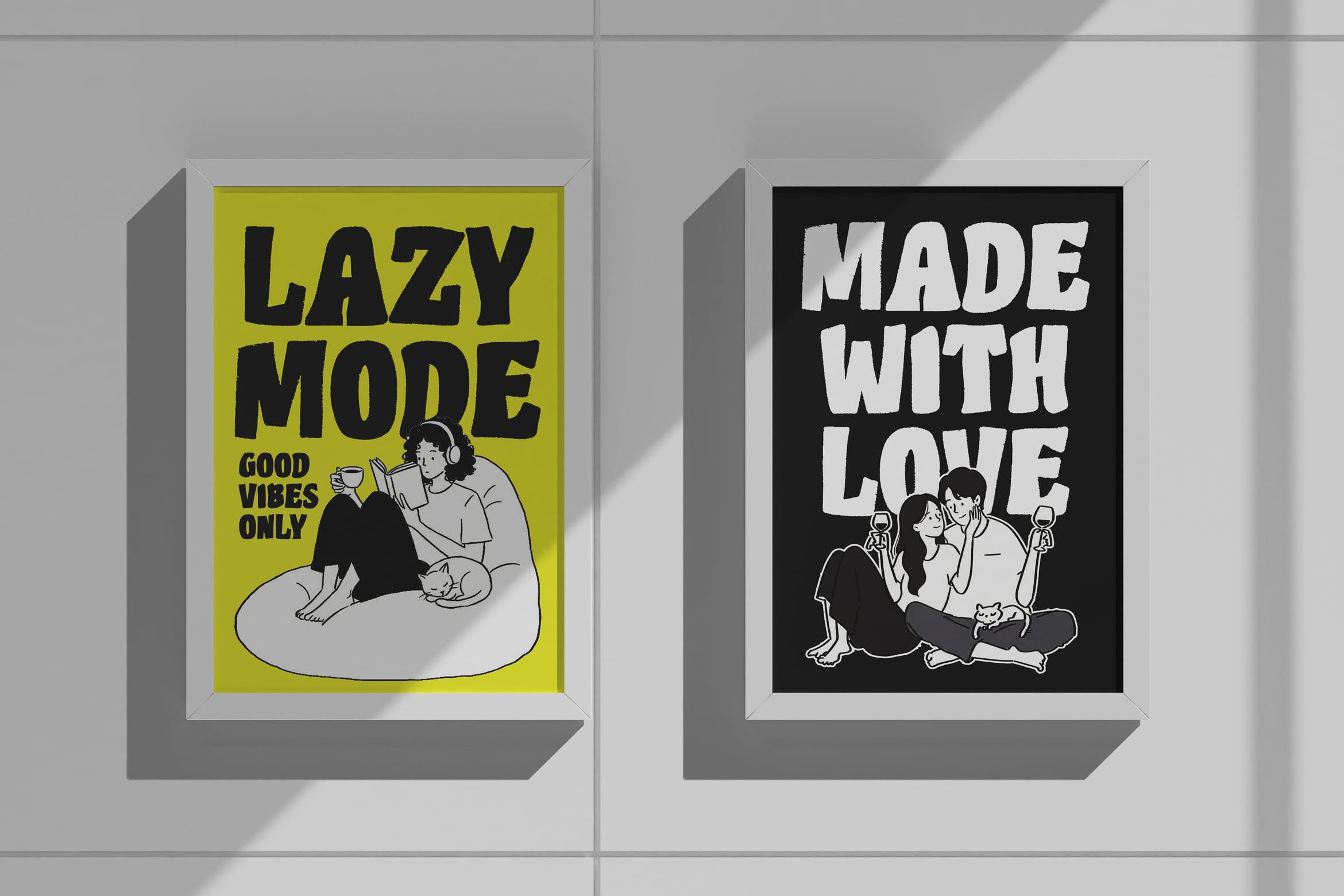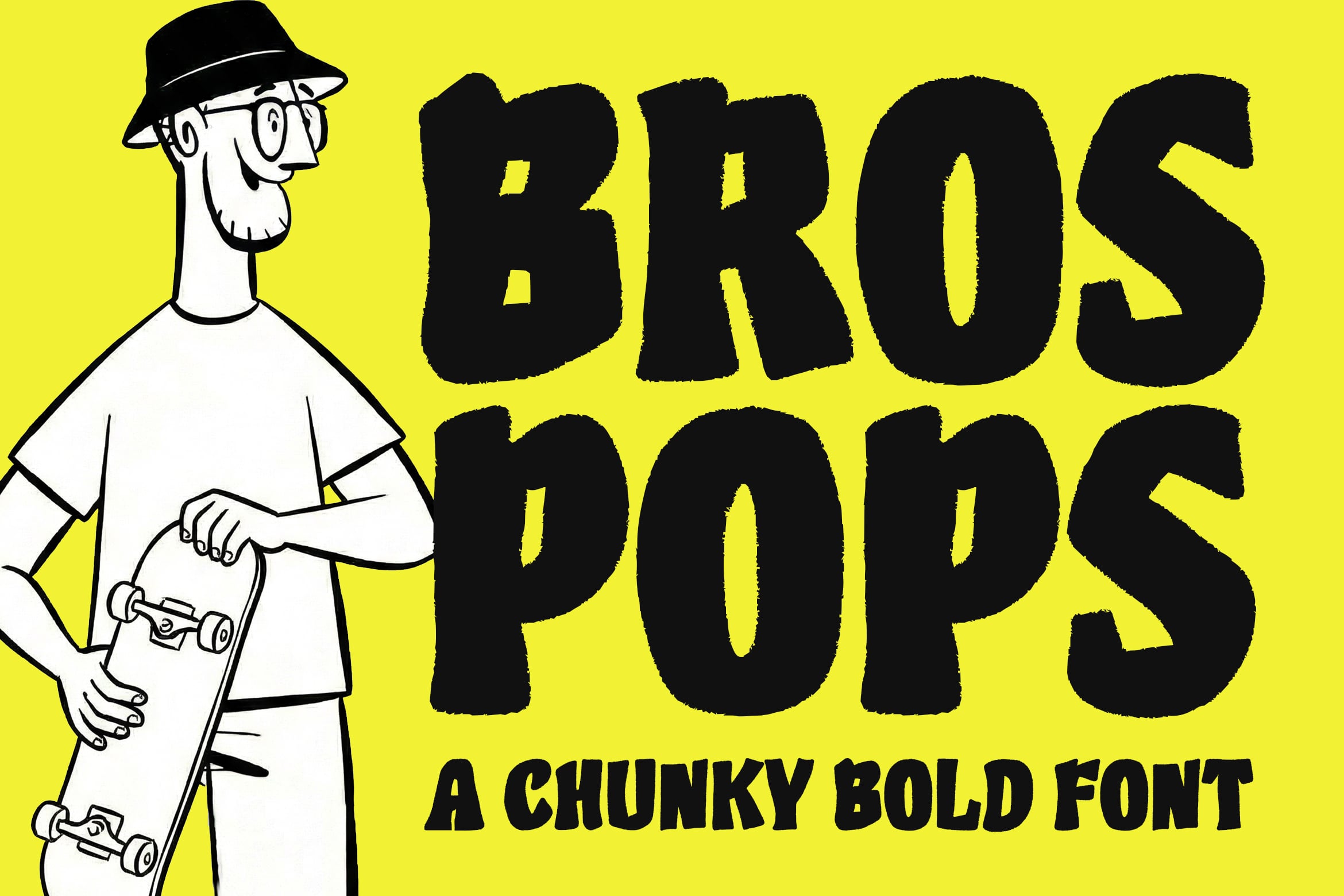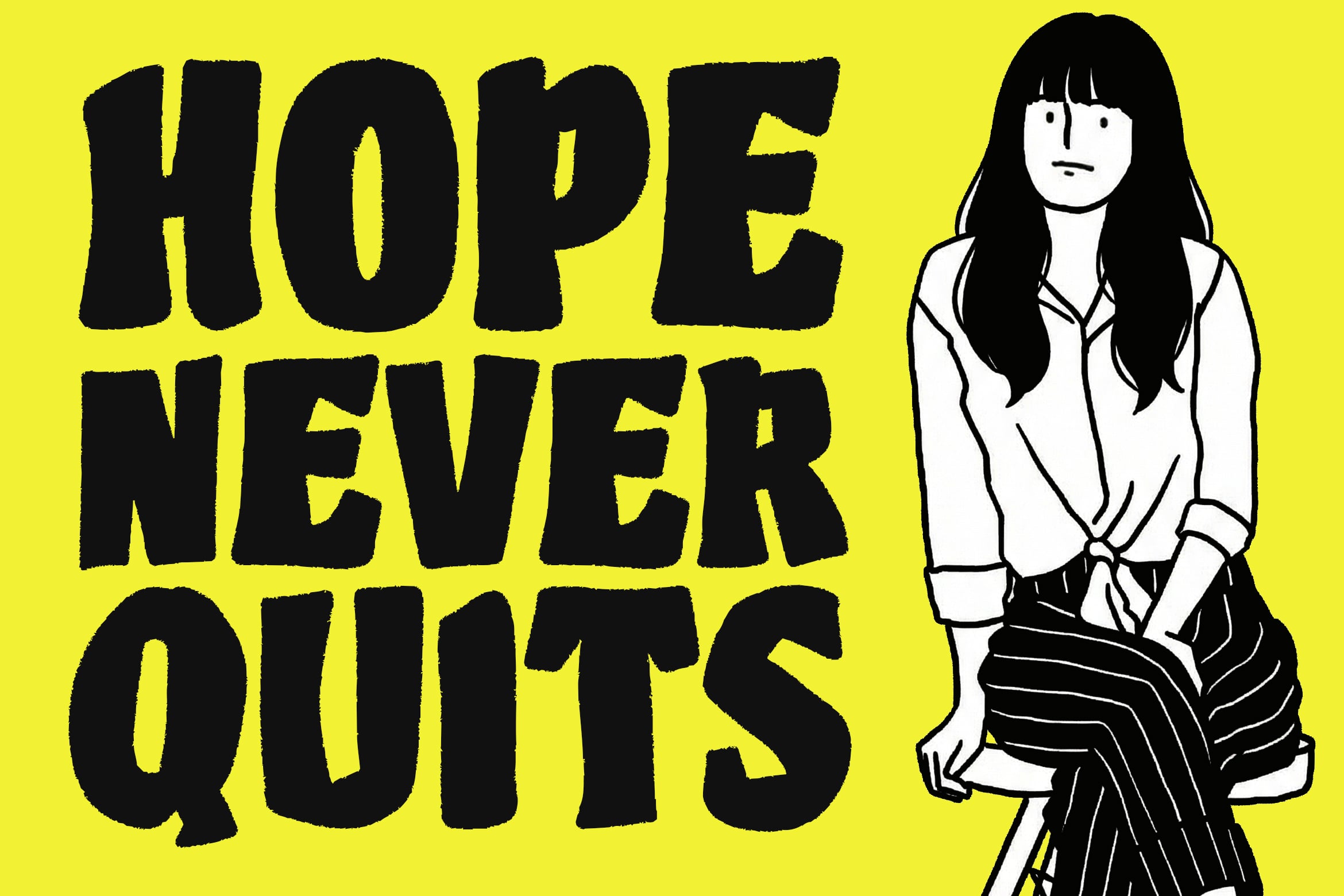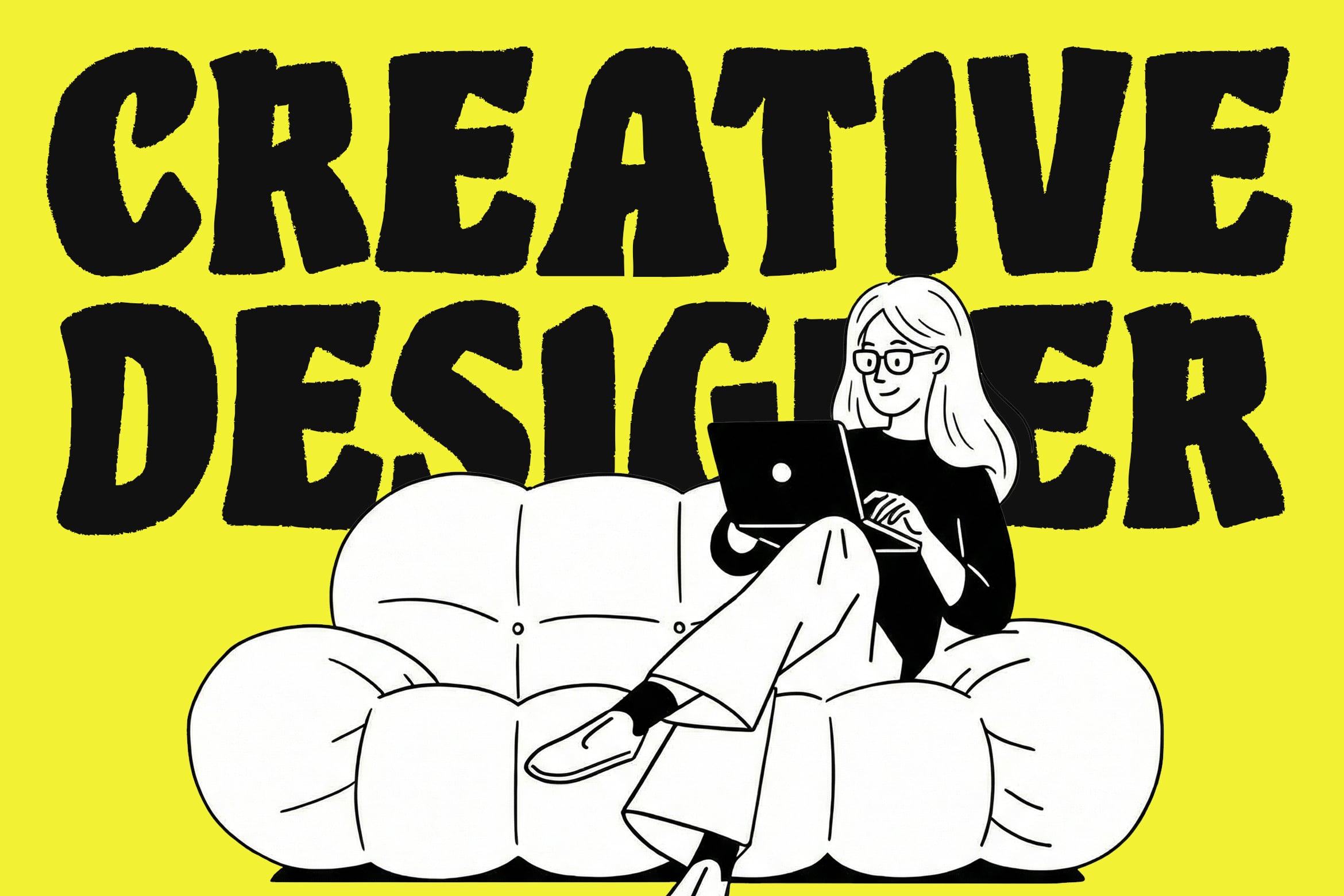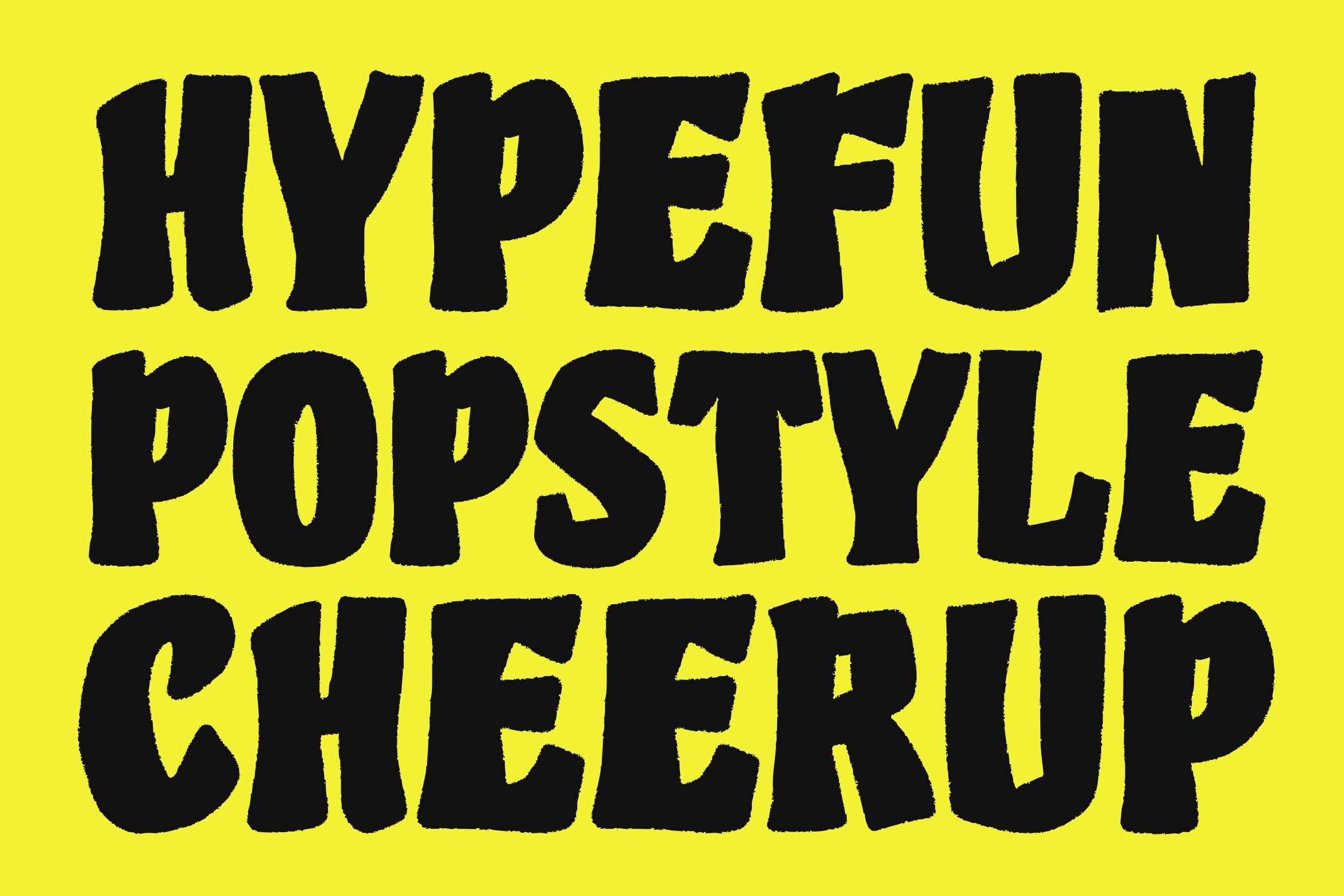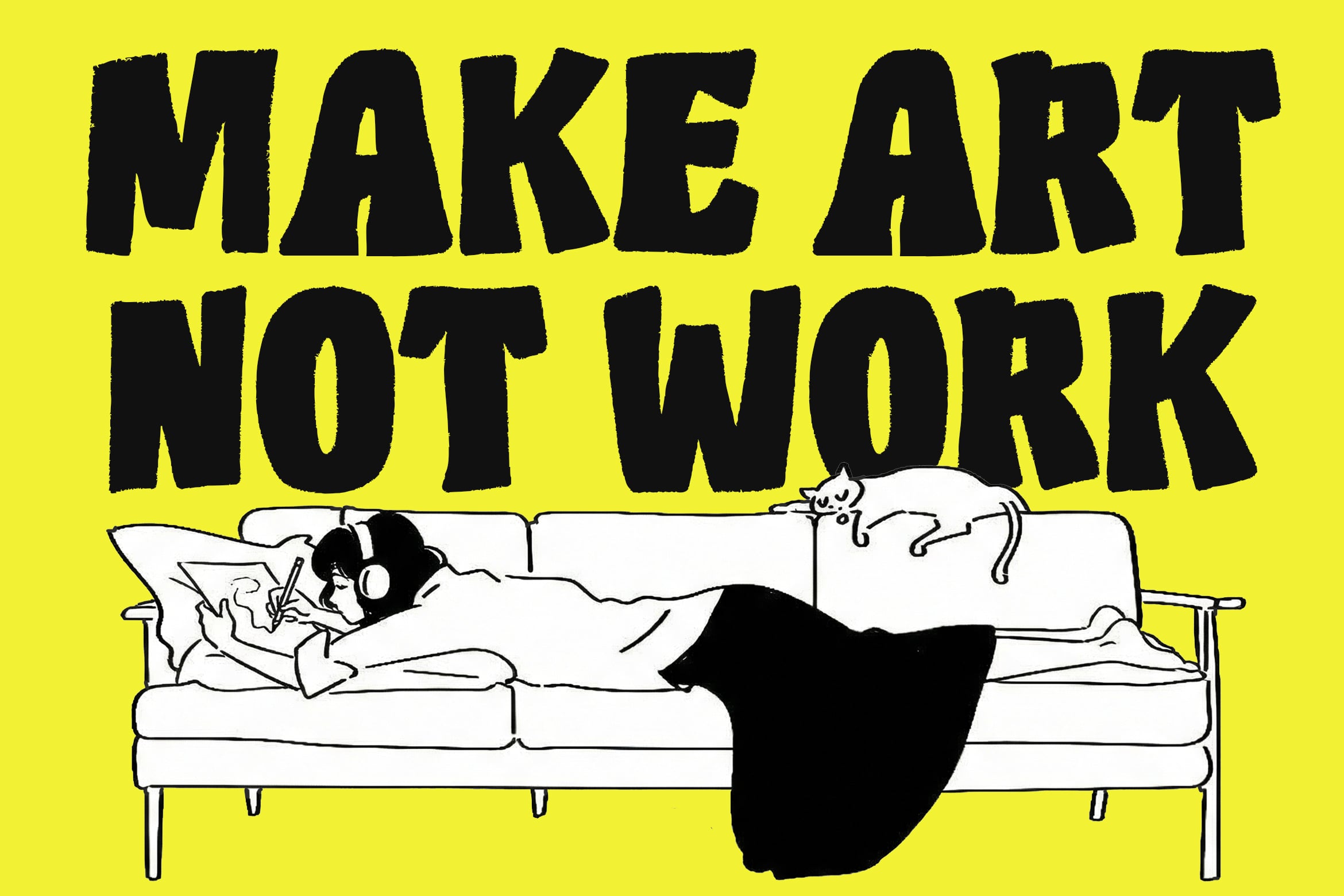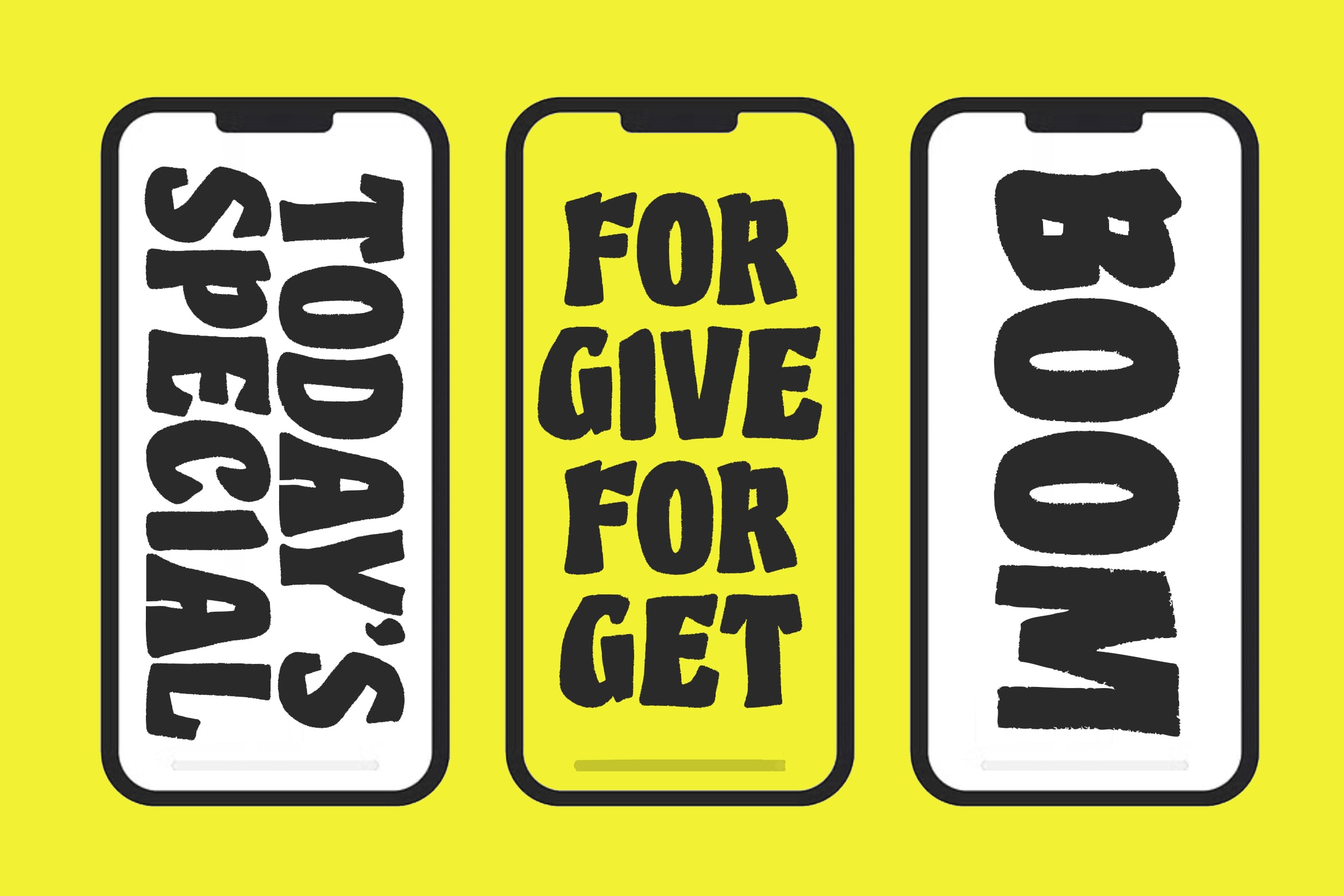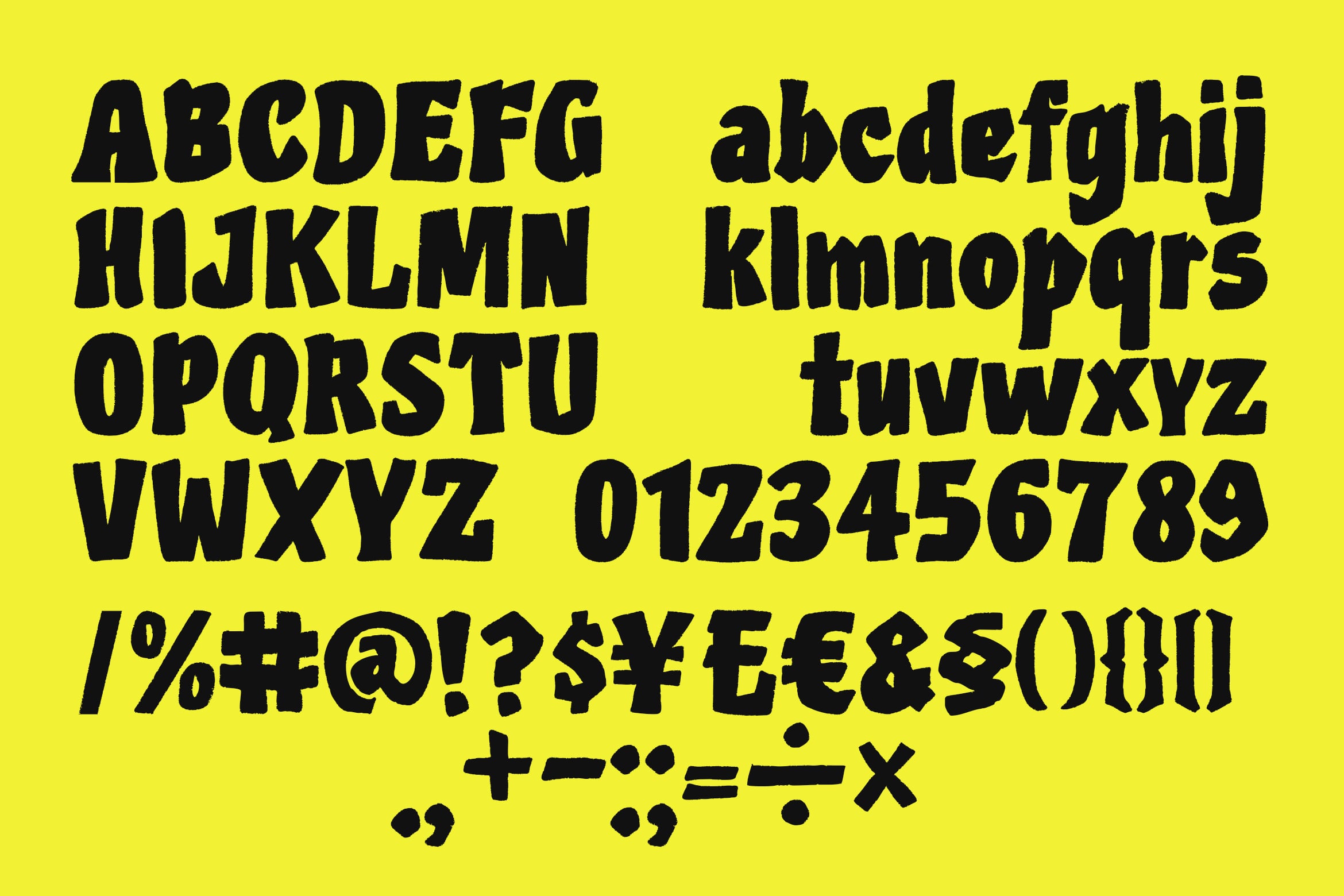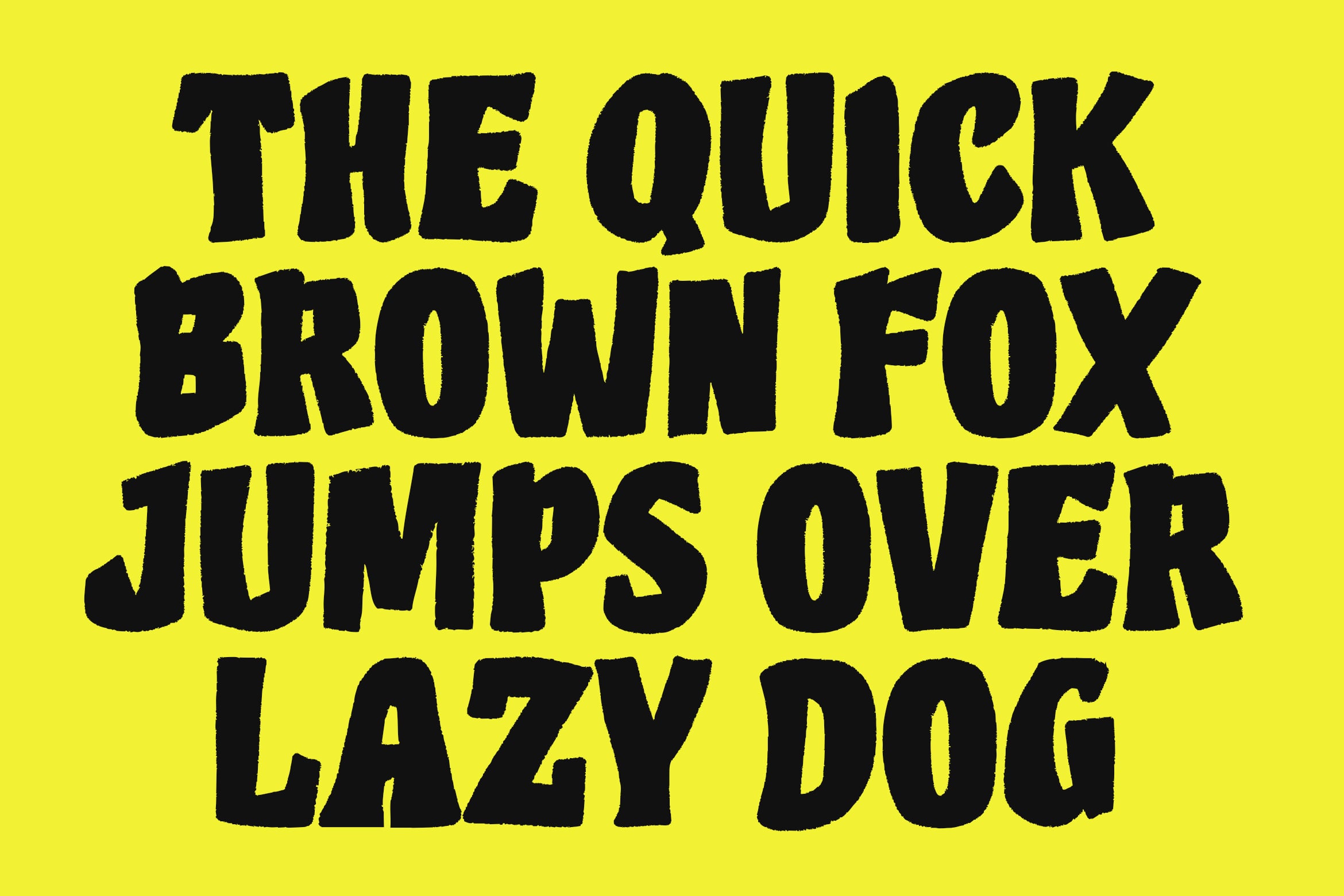
Bros Pops is a chunky, bold, and playful display font designed to deliver strong visual impact and a fun personality. Inspired by pop culture,..street art, and modern comic-style lettering, this font is perfect for designs that need to stand out instantly.
With its thick strokes, rounded shapes, and slightly irregular forms, Bros Pops feels energetic, friendly, and expressive. It works exceptionally well for eye-catching headlines and bold statements across both print and digital media.